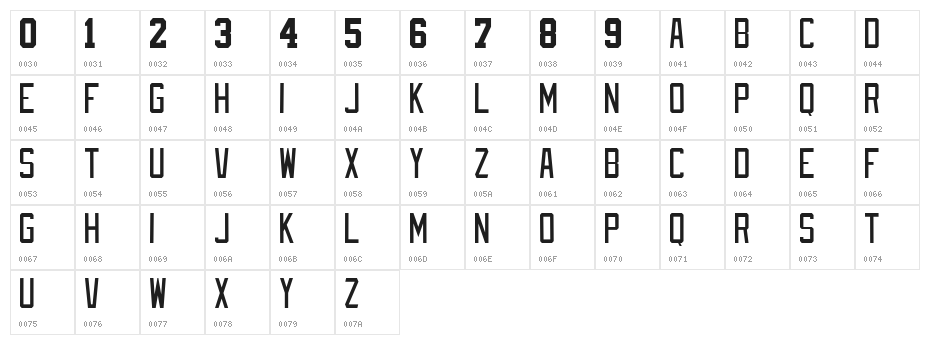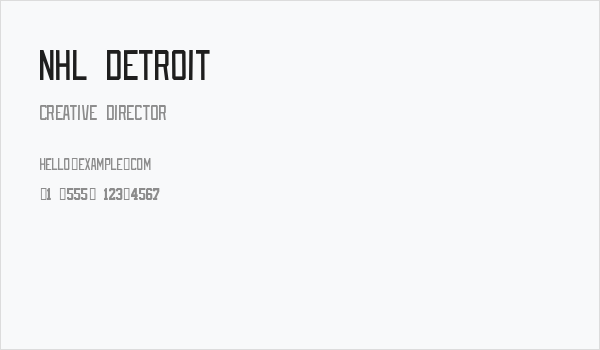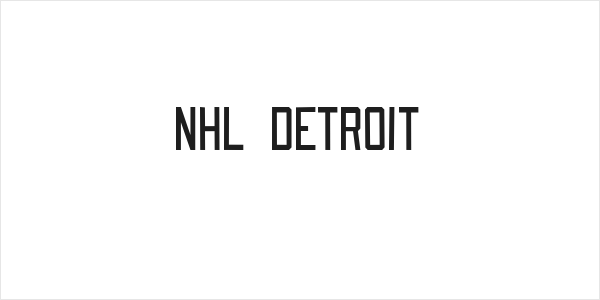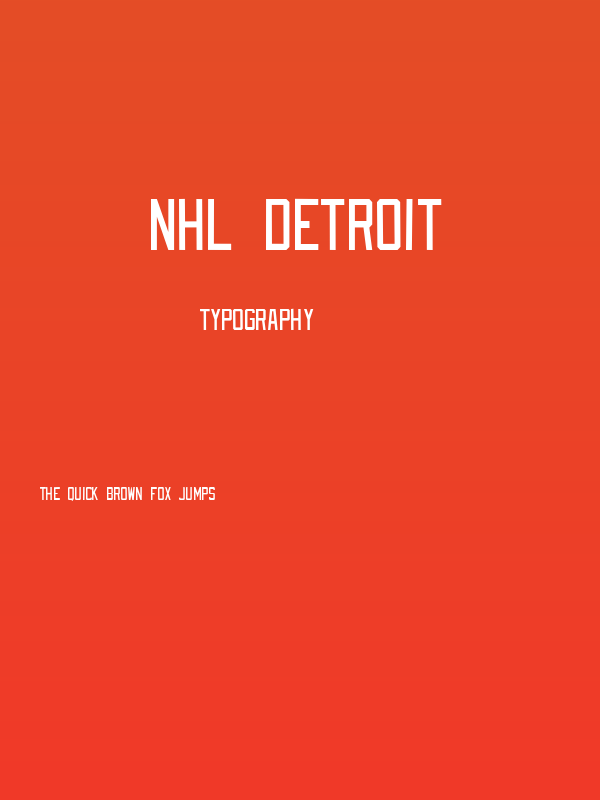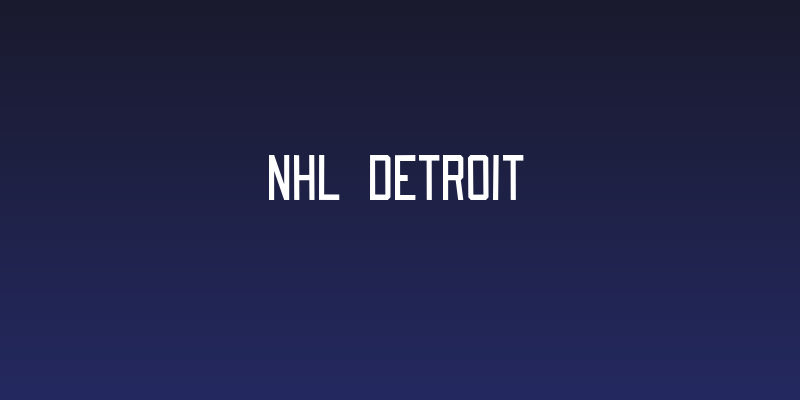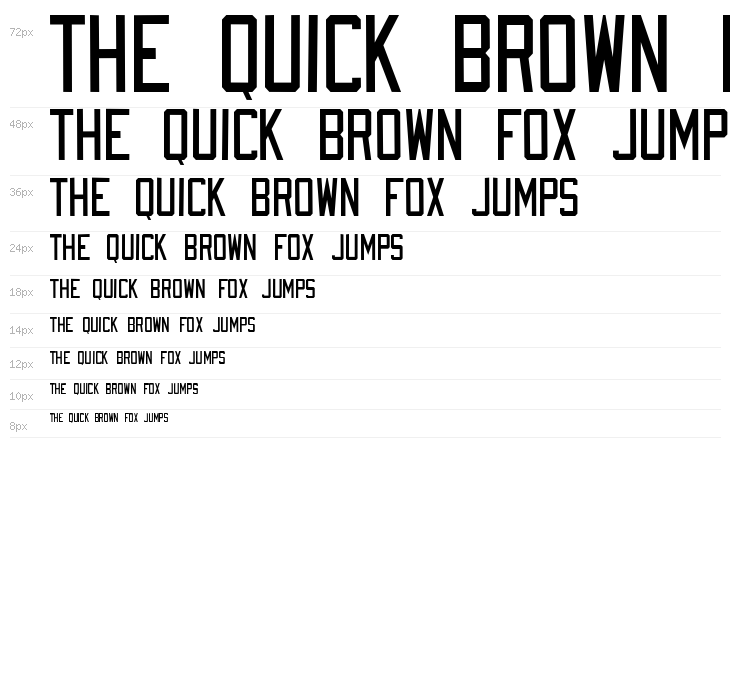
NHL Detroit Font
NHL Detroit Description
This font features a bold, geometric style with strong, angular lines and a modern aesthetic. The uppercase letters are uniform in height, creating a cohesive and structured appearance. The numbers are equally bold, with a consistent width that complements the overall design. The font's sharp edges and clean lines give it a contemporary feel, making it suitable for projects that require a strong visual impact. The absence of lowercase letters and special characters suggests a focus on simplicity and clarity.
| Use Case | Logos, Headlines |
| Proposed Projects | Ideal for sports team branding, posters, and merchandise design. |